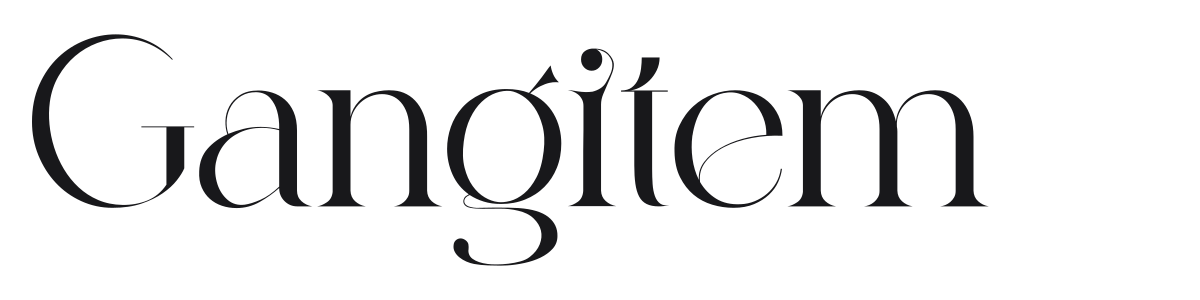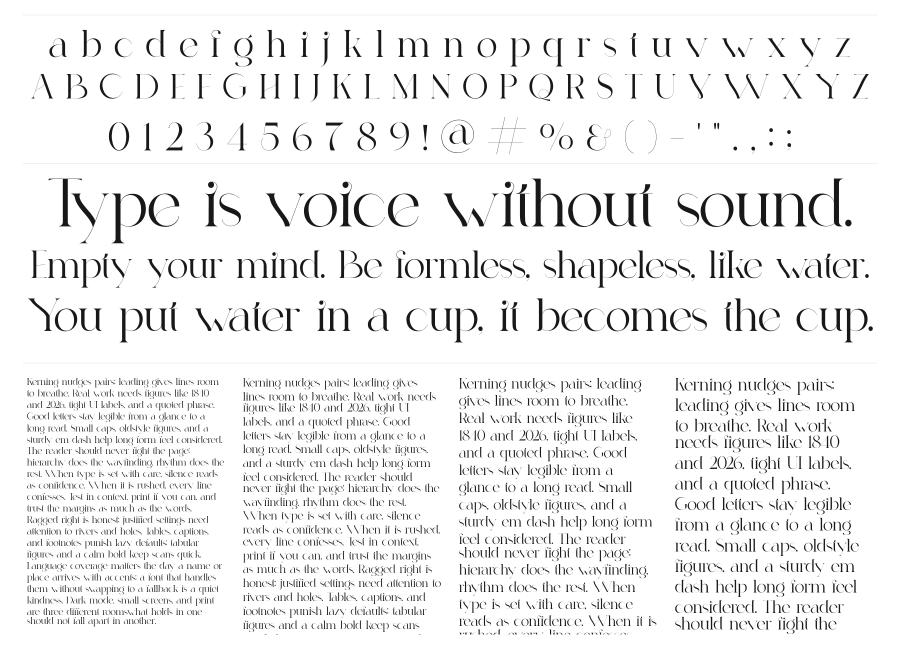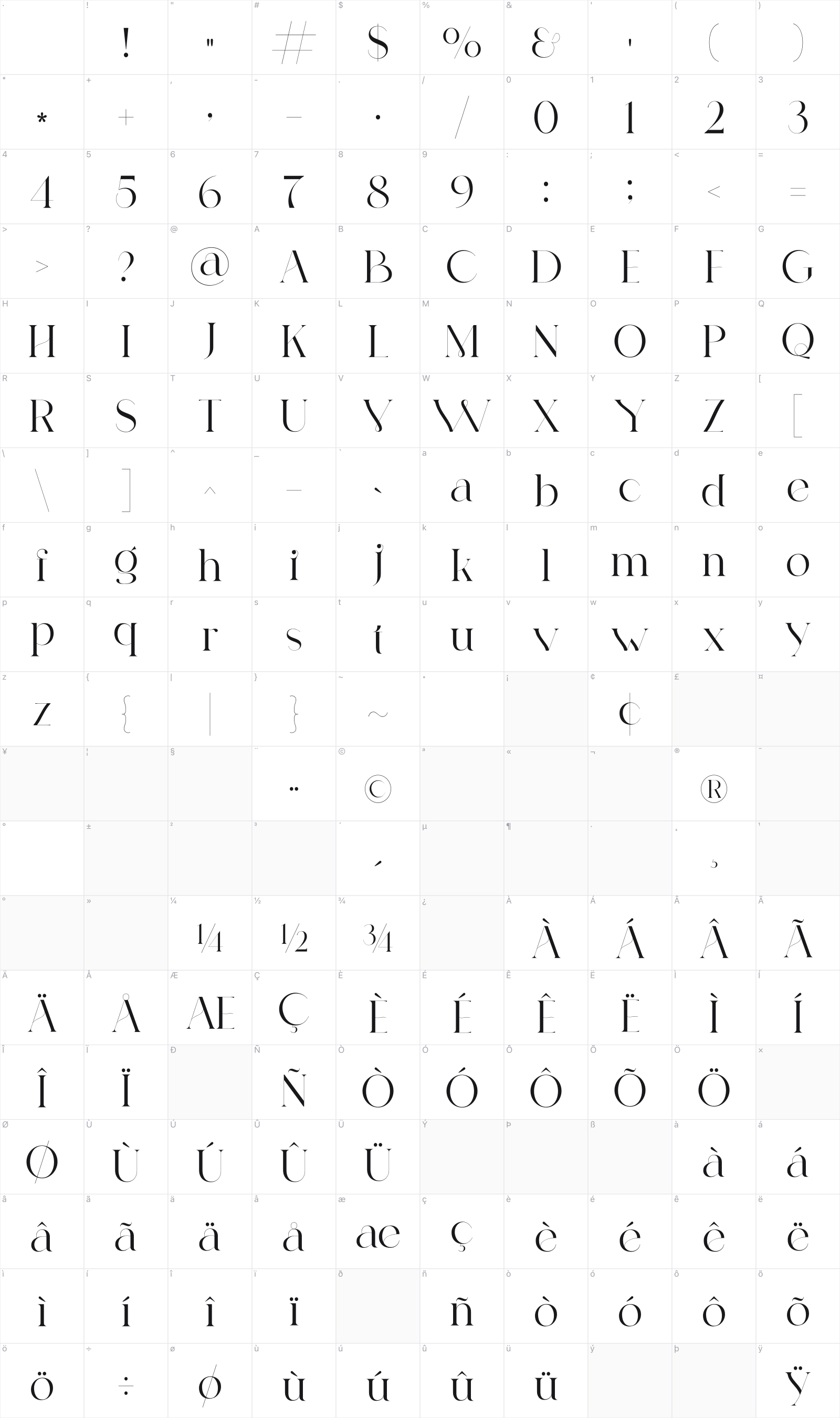
Gangitem
Gangitem is a high-contrast modern serif rooted in the Didone tradition, with extreme stroke variation between bold stems and near-invisible hairlines. The fine serifs and sculptural curved terminals give it a couture sensibility that reads as both classical and contemporary. A natural choice for fashion branding, editorial headlines, and luxury packaging.